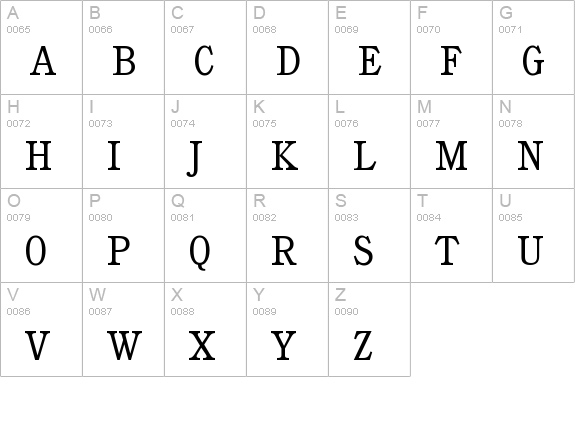
CalgarySerial-Light-Regular is a refined, elegant variant in the CalgarySerial typeface family \xE2\x80\x94 well suited to elegant body text, refined sub-headings, and luxury branding.
CalgarySerial-Light-Regular is a sleek and modern font that exudes sophistication and versatility. With its clean lines and elegant curves, this typeface is perfect for a wide range of design projects, from branding to editorial design. The light weight of the font adds a touch of delicacy and refinement, making it ideal for conveying a sense of elegance and professionalism. What sets CalgarySerial-Light-Regular apart is not only its timeless design but also its accessibility. This font is available for free download at FontsMarket.com, making it a valuable resource for designers looking to enhance their projects without breaking the bank. Whether you're working on a website, a brochure, or a logo, CalgarySerial-Light-Regular is sure to elevate your design with its effortless charm and modern appeal.